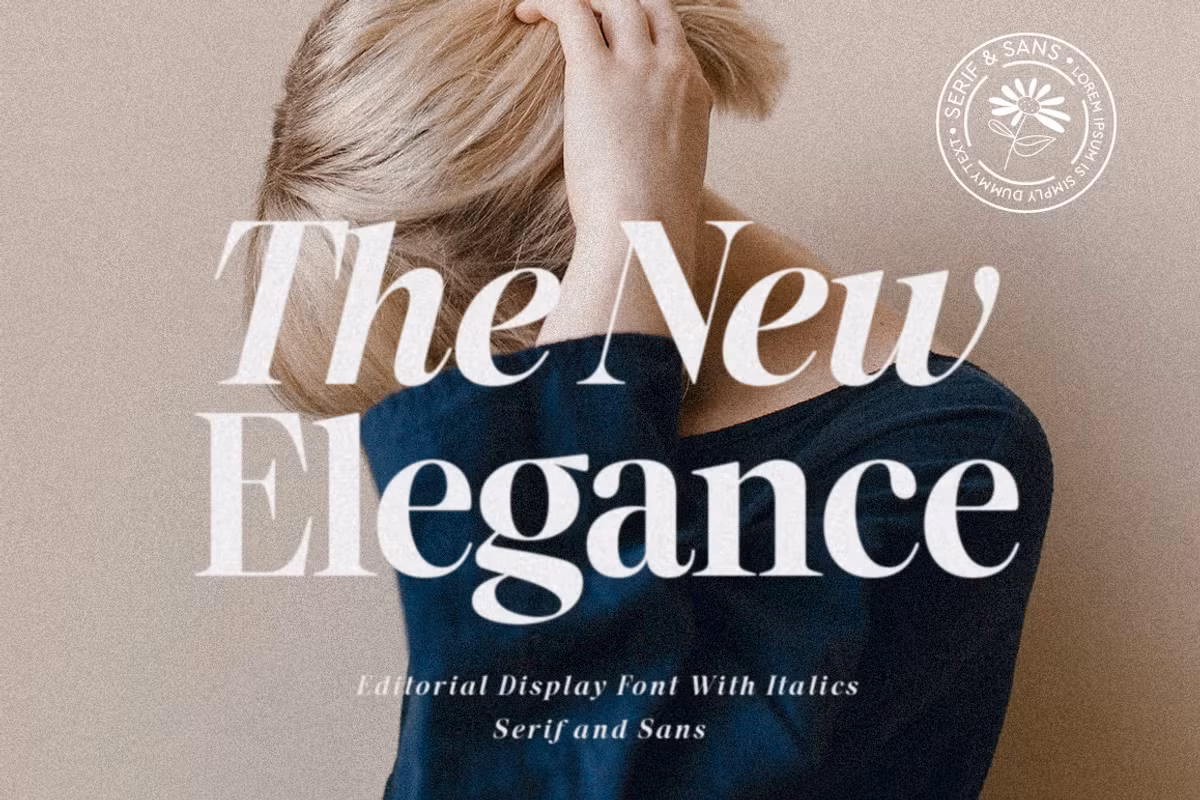
The New Elegance – Serif & Sans Font Free Download is a sophisticated and modern font duo that combines the timeless elegance of serifs with the clean, minimal appeal of sans-serif. Perfect for luxury branding, high-end editorial layouts, website headers, invitations, and premium product packaging, this font pair offers versatility and refined style.
The Serif font in this duo brings classic charm and authority, while the Sans font offers a sleek, contemporary counterpart that’s clean and versatile. Together, they provide a balanced aesthetic suitable for both bold headlines and refined body text.
The duo includes uppercase and lowercase letters, numerals, punctuation, and multilingual support. With its modern elegance and simple sophistication, The New Elegance will give your designs a professional and polished look.